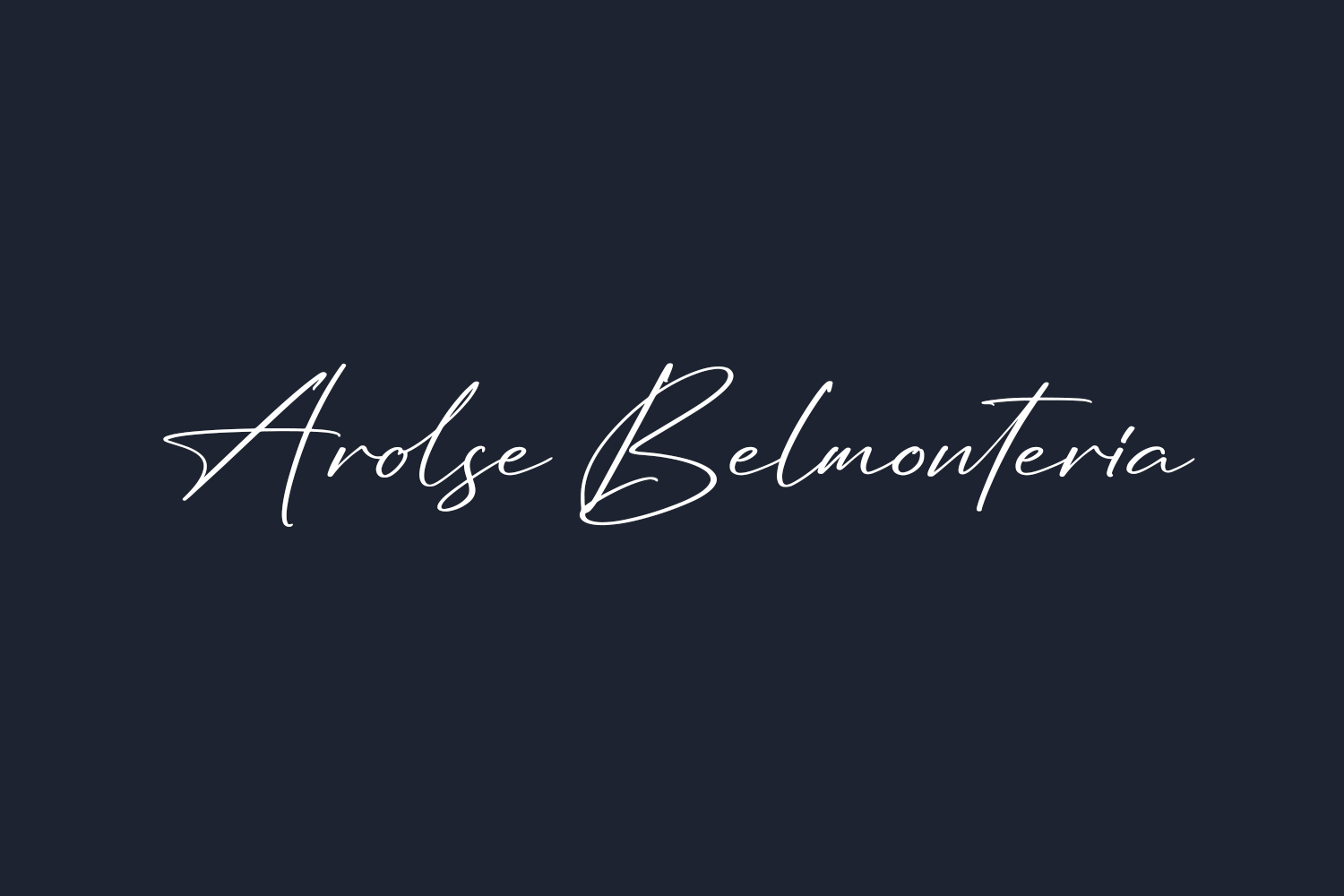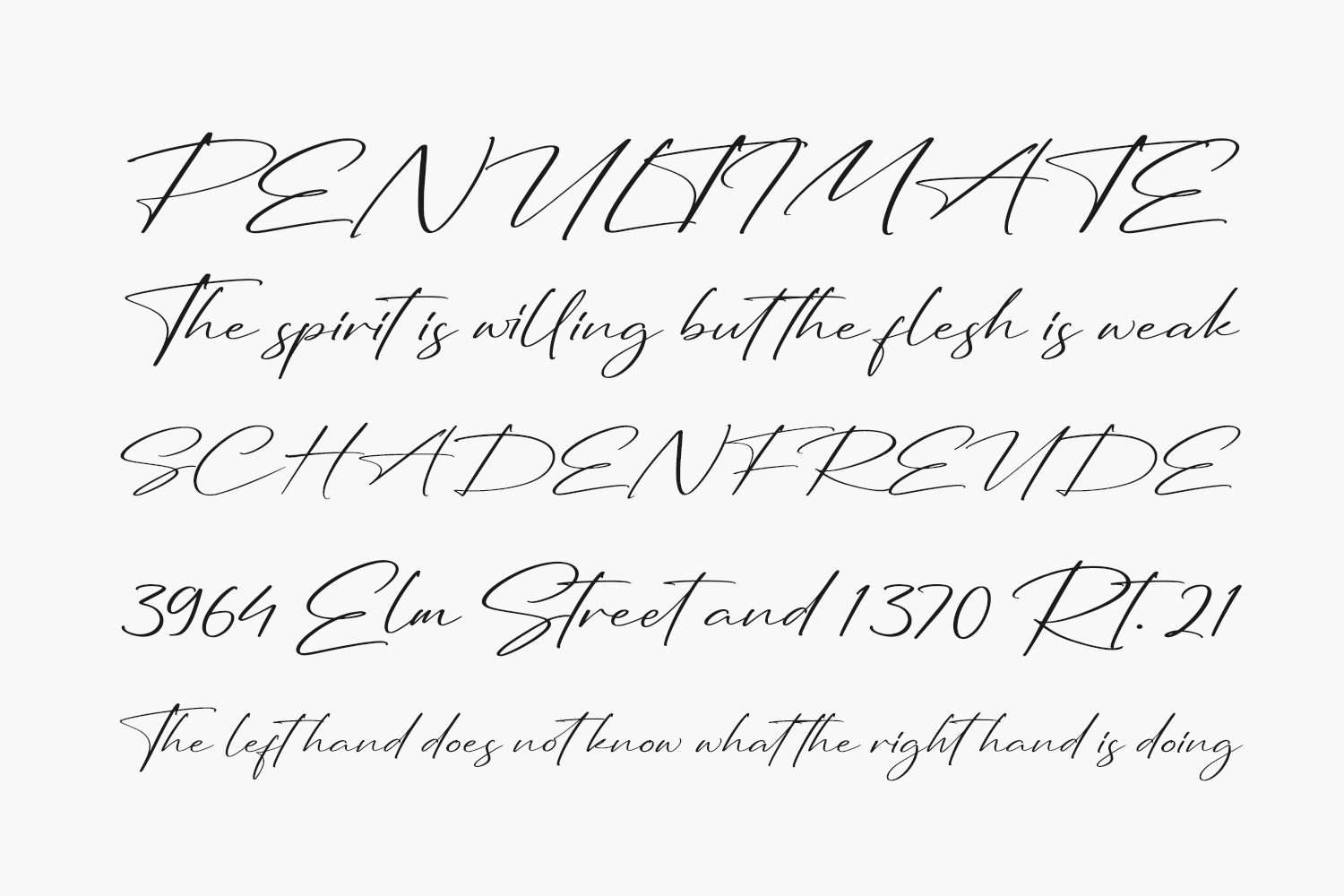
Arolse Belmonteria Free Font Family is a beautifully crafted, handwritten font that exudes a charming and rustic feel. With its natural and flowing strokes, this font is perfect for creating a warm and inviting atmosphere in any design project. Whether you’re looking to add a personal touch to your wedding invitations, create a cozy book cover, or design a unique logo, this font is sure to add a touch of character and personality to your work.